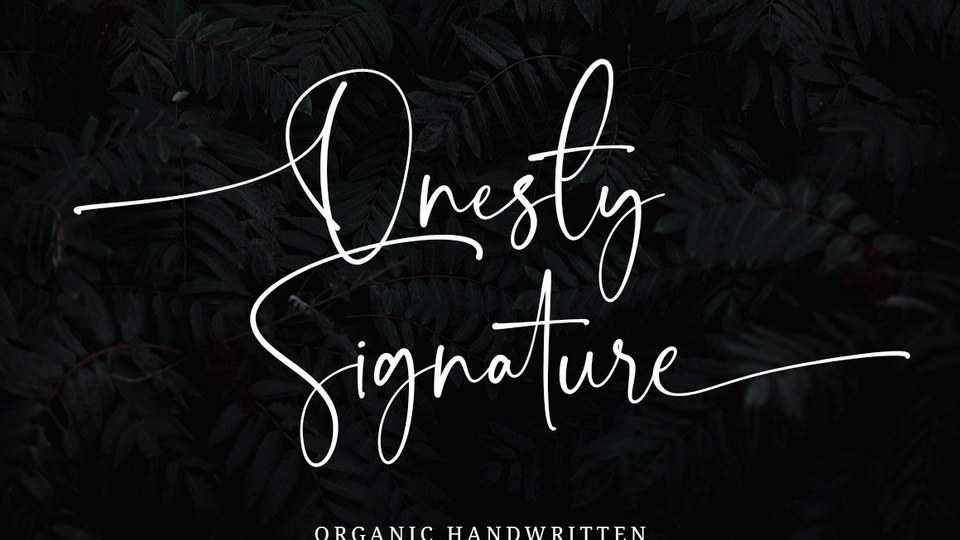
Download Onesty Signature font, an organic script typeface with a smooth handwritten flow. Onesty Signature font is perfect for logos, wedding, cards, gift designs, photography, watermark, product packaging and handwritten quotes.
Designer: Typesthetic Studio